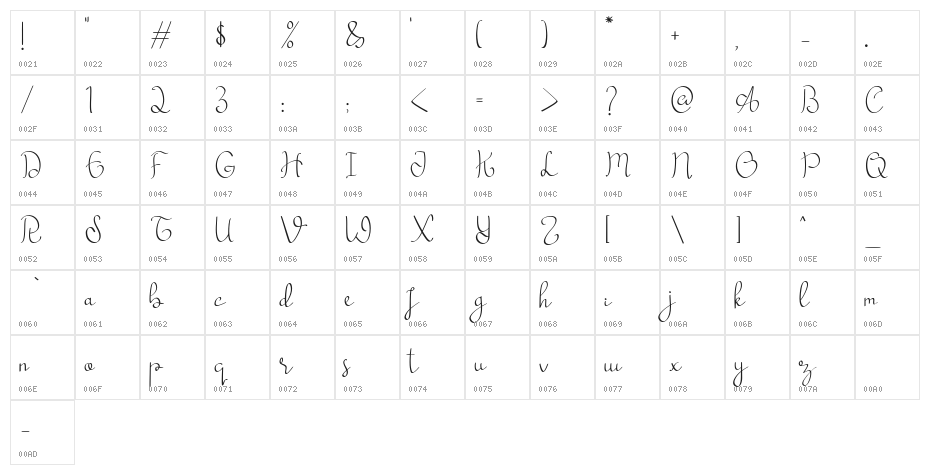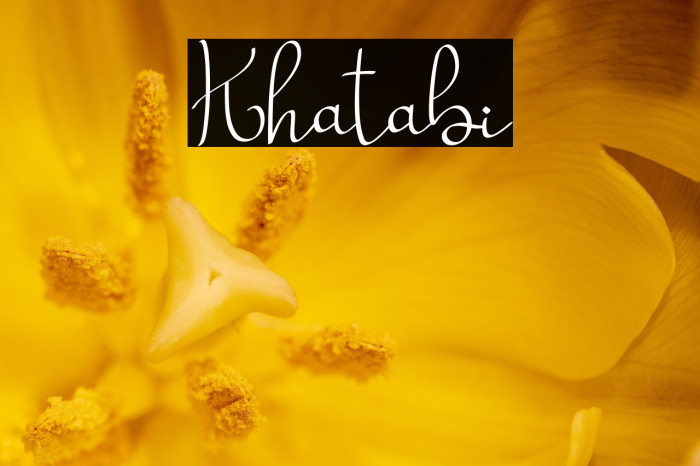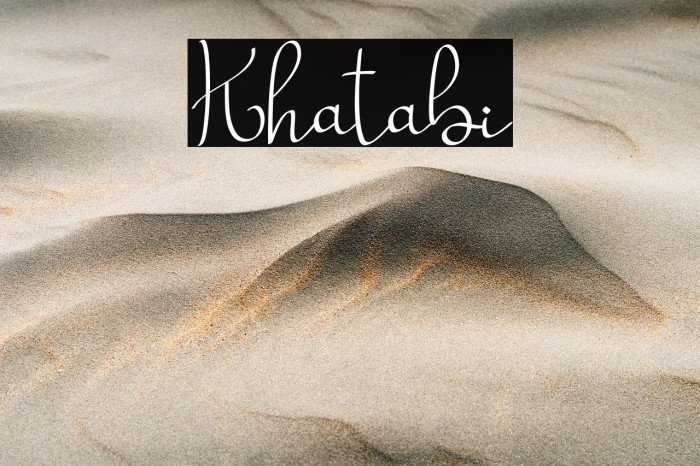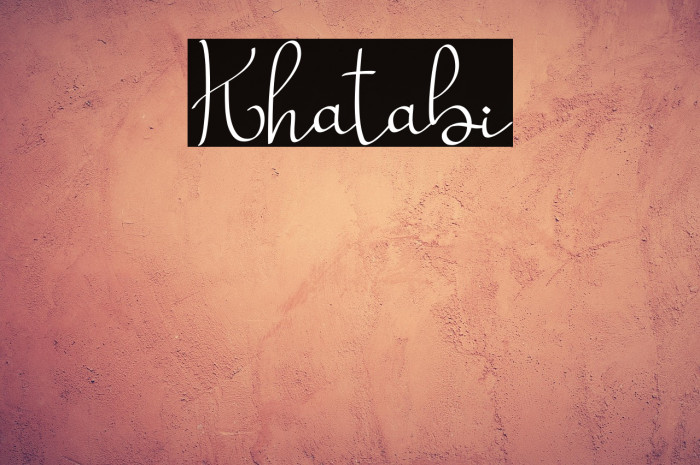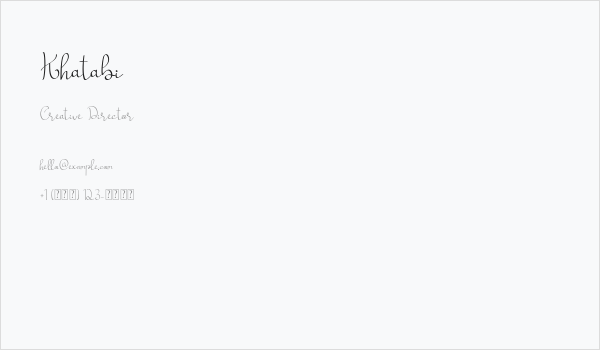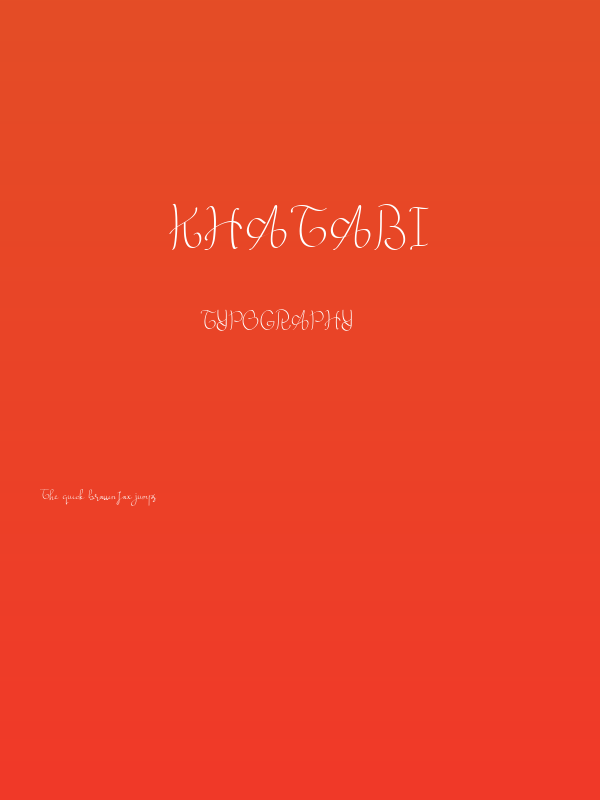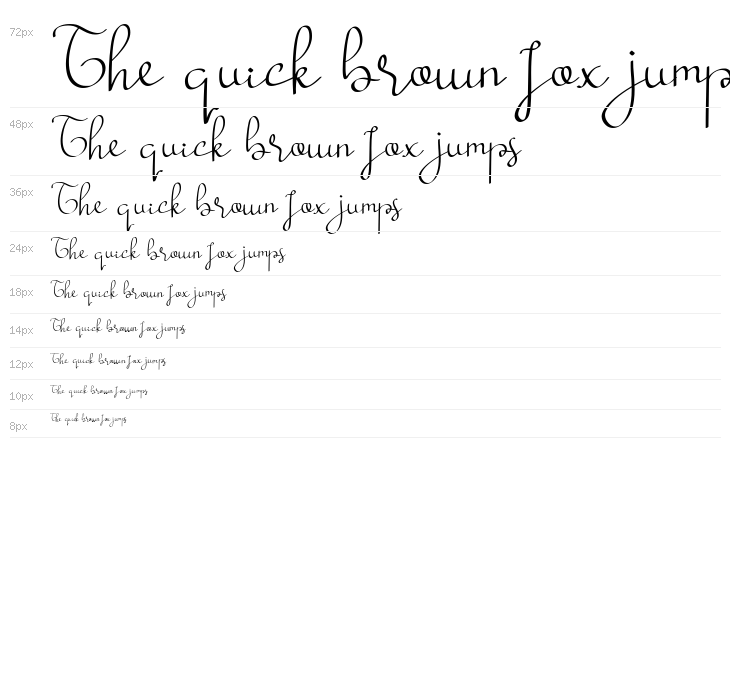
Khatabi Font
Khatabi Description
This font features an elegant, flowing script style with a handwritten appearance. The uppercase letters are characterized by their graceful curves and loops, giving them a sophisticated and artistic look. The lowercase letters maintain a consistent style, with some characters exhibiting unique flourishes that add to the font's charm. The numerals are clear and legible, while the special characters blend seamlessly with the overall design. This font's delicate strokes and fluid lines make it suitable for projects that require a touch of elegance and creativity.
| Overall Style | Elegant, Artistic |